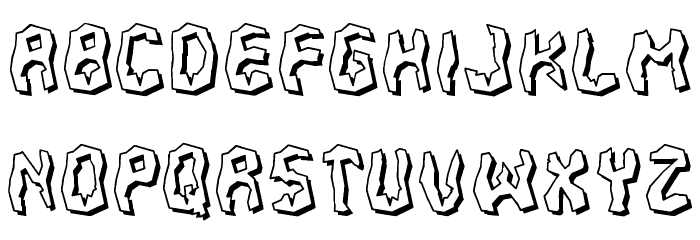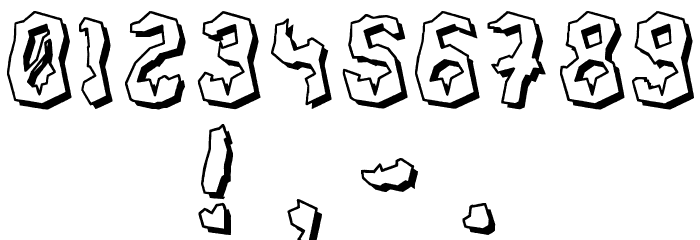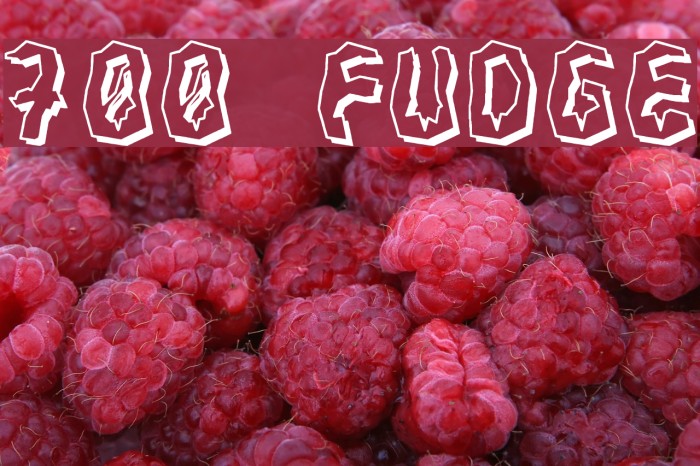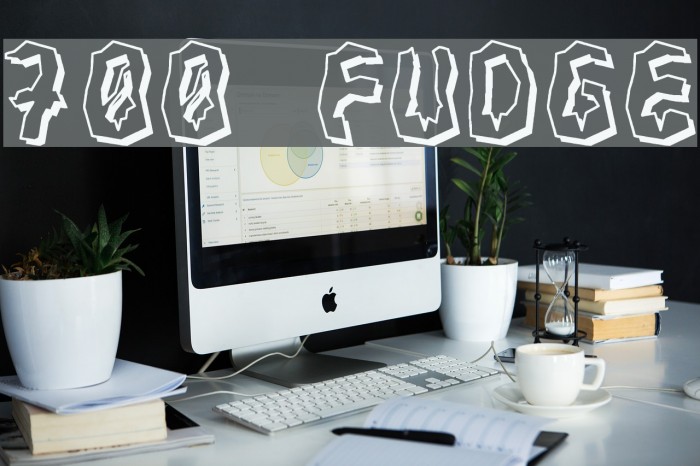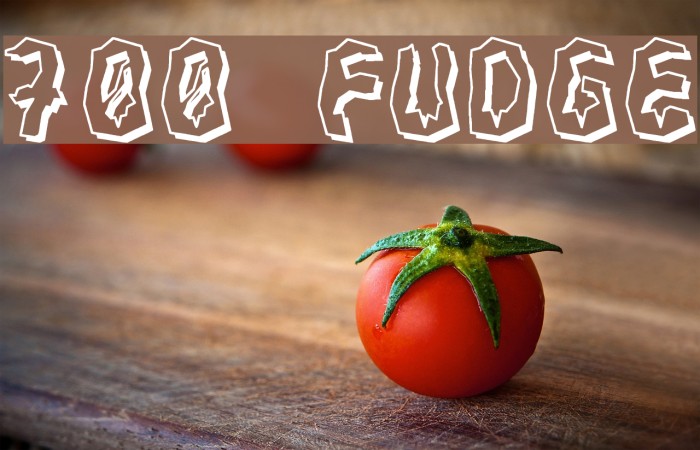
700 Fudge Font
This font features a bold, jagged style with a hand-drawn appearance. Each character is outlined with a thick, uneven stroke, giving it a rugged, edgy look. The letters have a three-dimensional effect, as if they are carved out of stone or wood, with irregular edges and a shadow-like outline. This design creates a sense of movement and energy, making it stand out in any context. The font is highly decorative, with a playful and artistic vibe that can add a unique touch to creative projects.
A bold, jagged, hand-drawn font with a rugged, three-dimensional effect.
- Proposed Projects: Ideal for posters, album covers, video game titles, and any project needing a bold, artistic touch.